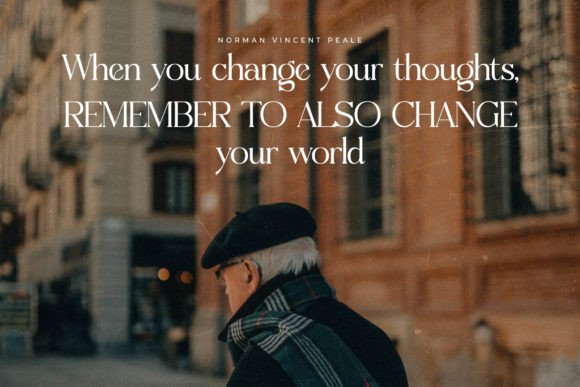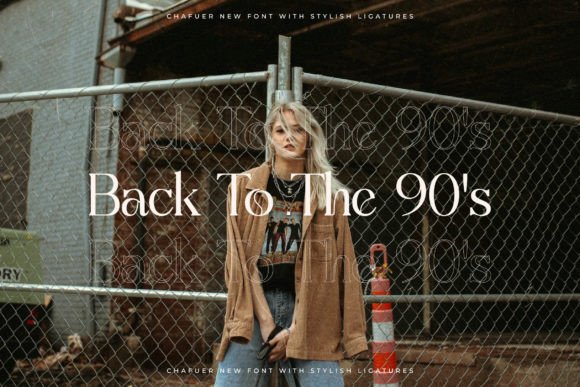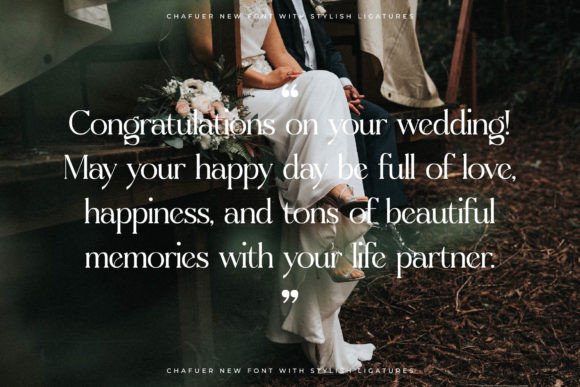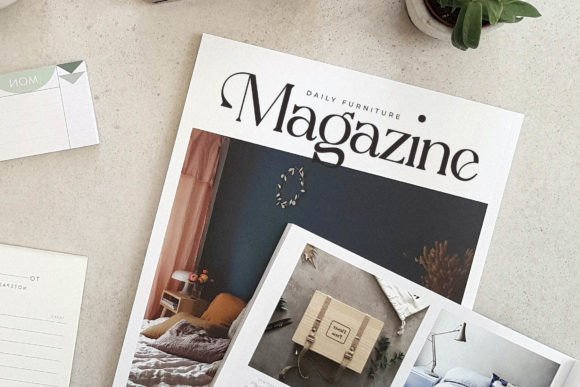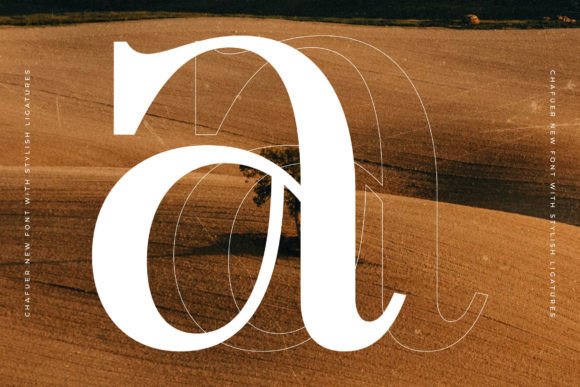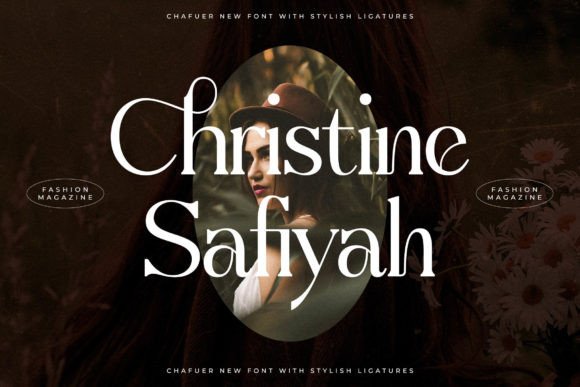
Discover the Elegance of Chafuer Font
Have you ever found yourself lost in the world of typography, searching for the perfect font to elevate your design? I know I have. It was during one such moment, staring at a blank screen, that I stumbled upon Chafuer Font. Its modern and classic serif style caught my attention, and I knew I had to learn more.
Chafuer Font is a versatile and sophisticated typeface, designed to add an air of luxury and elegance to any design. Whether you’re working on a logo, book title, or magazine cover, this font is sure to make your project stand out. For designers, Chafuer Font is a valuable tool, offering a unique style that can help you create memorable and impactful designs.
Chafuer Font Key Features
- Font Family: Chafuer is a serif font family, suitable for body text and titles.
- Unique Characteristics: Chafuer features a unique blend of traditional and modern elements, with a distinctive x-height and a subtle flair to the letterforms.
Chafuer Font Review
As a designer, I’ve had the chance to work with a wide range of fonts, and I’m excited to share my thoughts on the Chafuer font.
- Unique and elegant design: The Chafuer font has a distinctive look that sets it apart from more common fonts.
- Good legibility: The font is easy to read, even at smaller sizes.
- Wide range of applications: The Chafuer font can be used for a variety of purposes, from body text to headings.
- Limited language support: The Chafuer font may not be suitable for languages that require a wider range of characters.
- Not suitable for bold text: The font’s design doesn’t lend itself well to bold text, which can make it look awkward.
- Not as versatile as some other fonts: While the Chafuer font is elegant, it may not be the best choice for projects that require a lot of variation in font style.
The Chafuer font is a beautiful and elegant choice for designers who want to add a touch of sophistication to their projects. While it may have some limitations, it’s a great option for projects where a unique and refined look is needed.
Chafuer Font is ideal for creating elegant and sophisticated designs. It’s commonly used for:
- Magazine and newspaper articles
- Book covers and interior design
Alternatives to Chafuer Font
Lato Font is a popular sans-serif font that works well for both body text and headings. It’s highly legible and versatile, making it suitable for a wide range of designs, from corporate websites to digital products. Lato Font is a great alternative to Chafuer Font when you need a clean and modern look without the ornate details.
Comparison to Chafuer Font: Lato Font is more minimalist and has a simpler design, whereas Chafuer Font has a more elegant and sophisticated feel. Lato Font is also more versatile and can be used in a wider range of contexts.
Montserrat Font is a geometric sans-serif font that’s perfect for modern and urban designs. It’s highly readable and works well in both small and large font sizes. Montserrat Font is a great alternative to Chafuer Font when you need a bold and edgy look.
Comparison to Chafuer Font: Montserrat Font is more geometric and has a more aggressive feel, whereas Chafuer Font has a more elegant and refined design. Montserrat Font is also more suitable for modern and urban designs, whereas Chafuer Font is more versatile and can be used in a wider range of contexts.